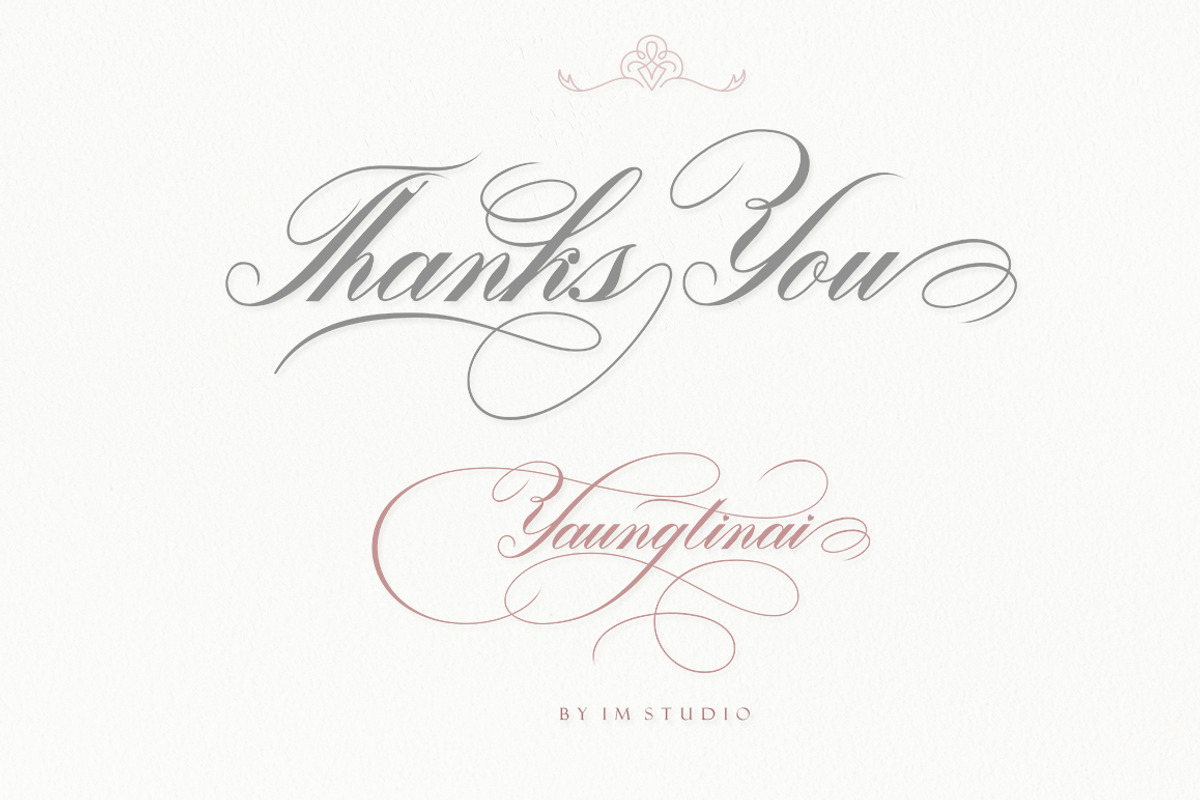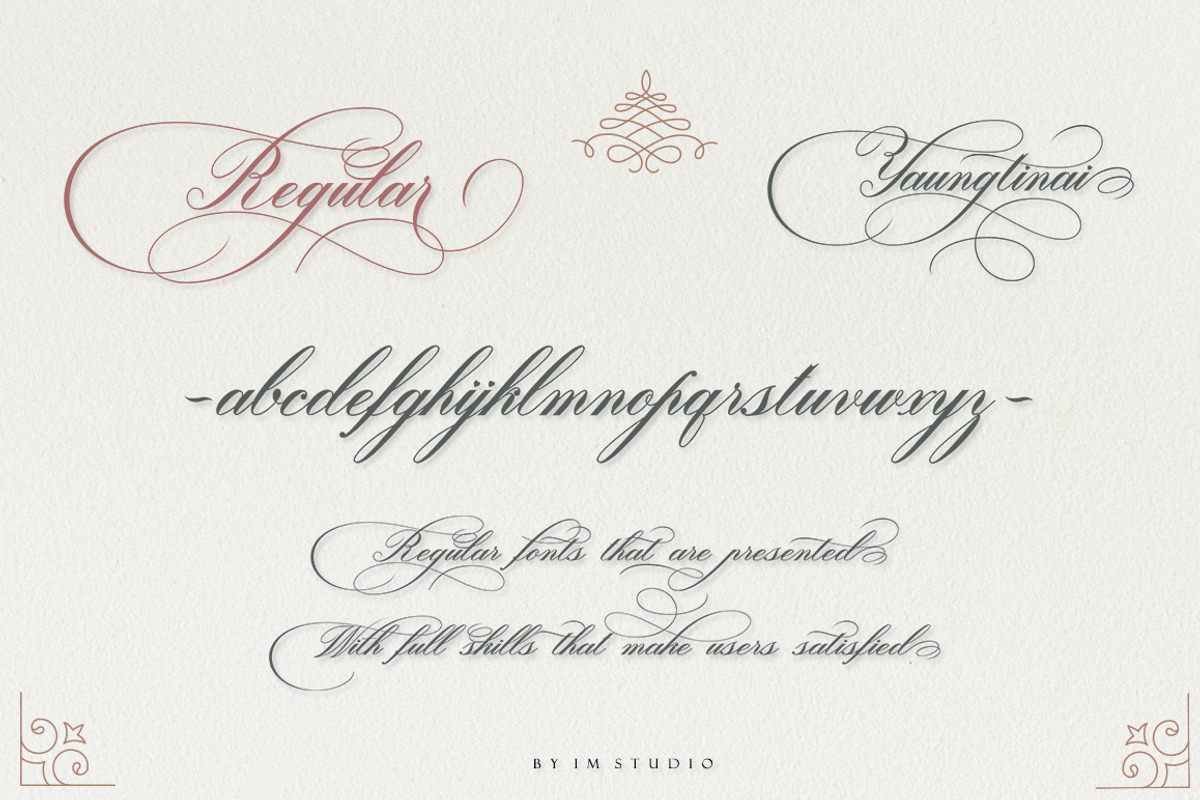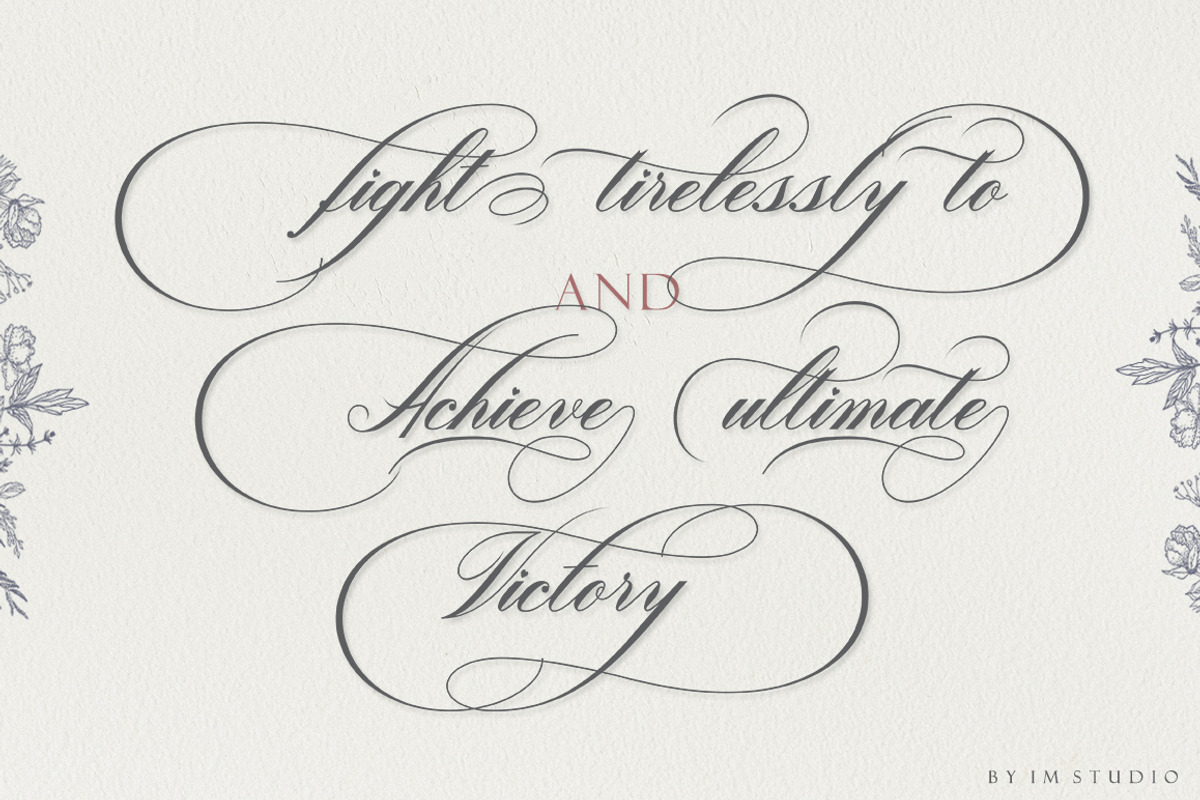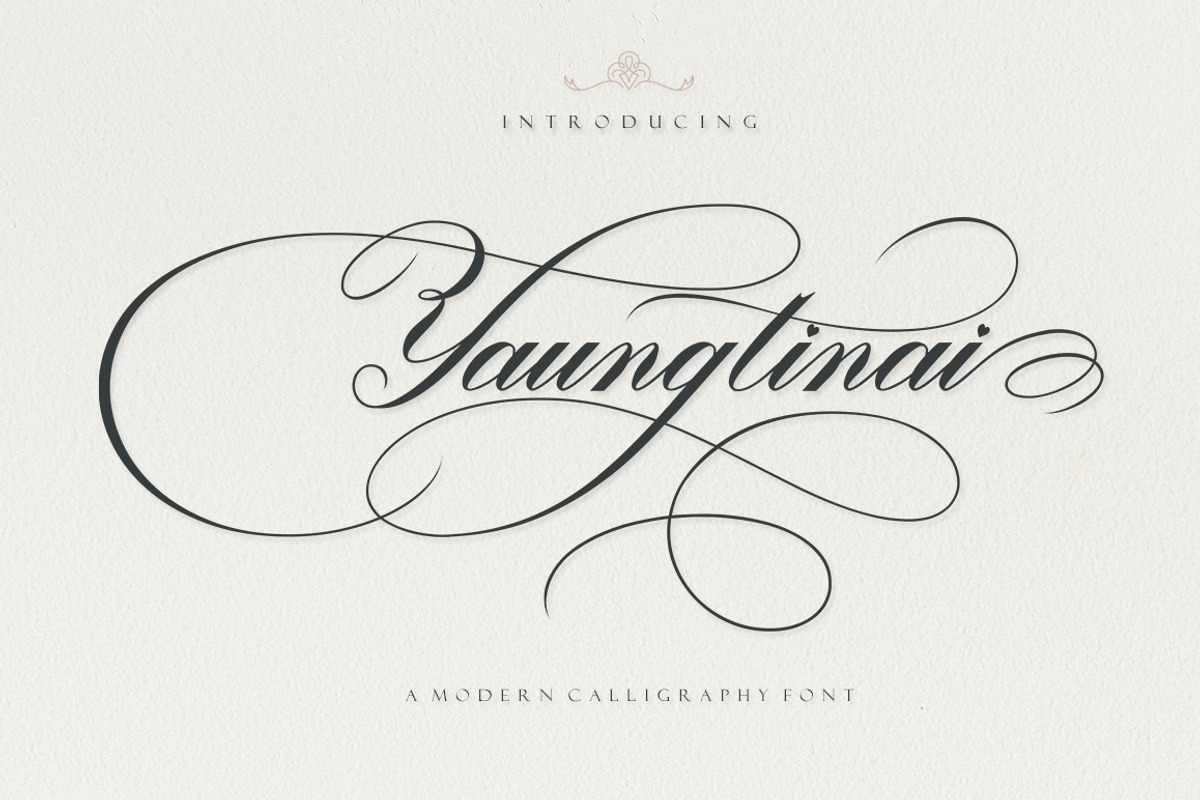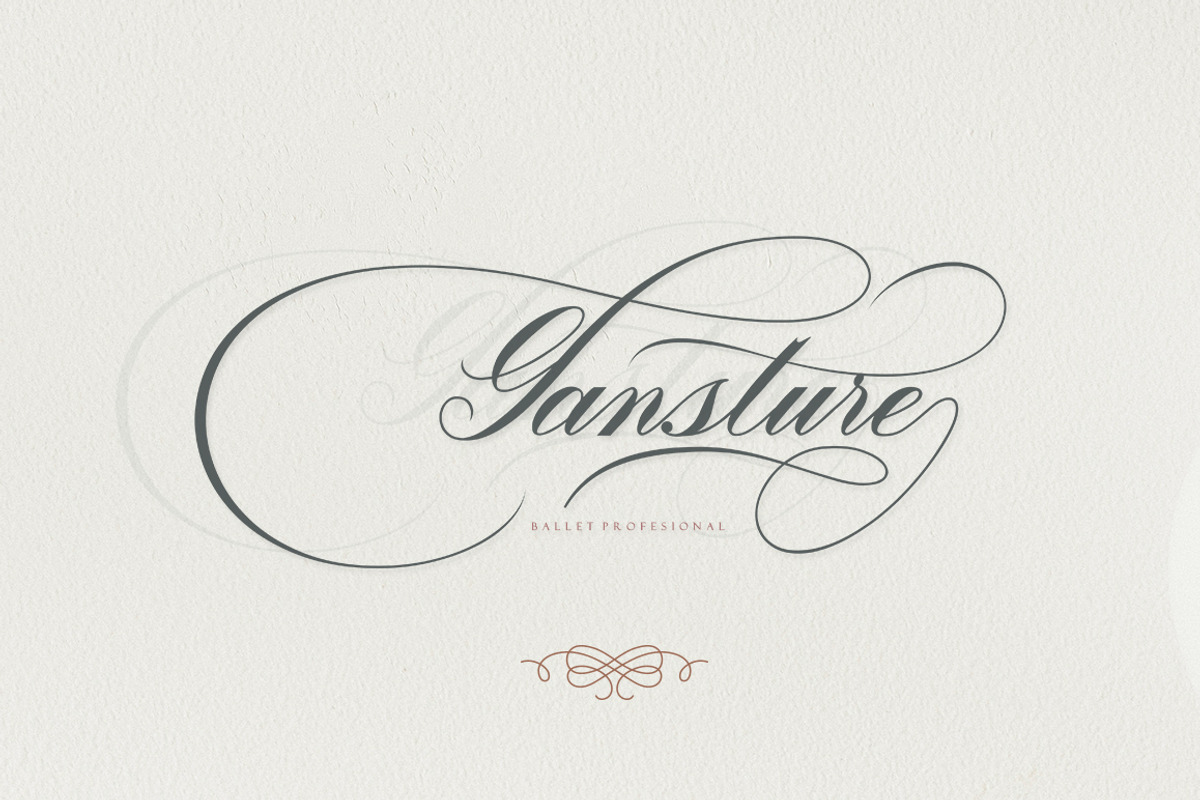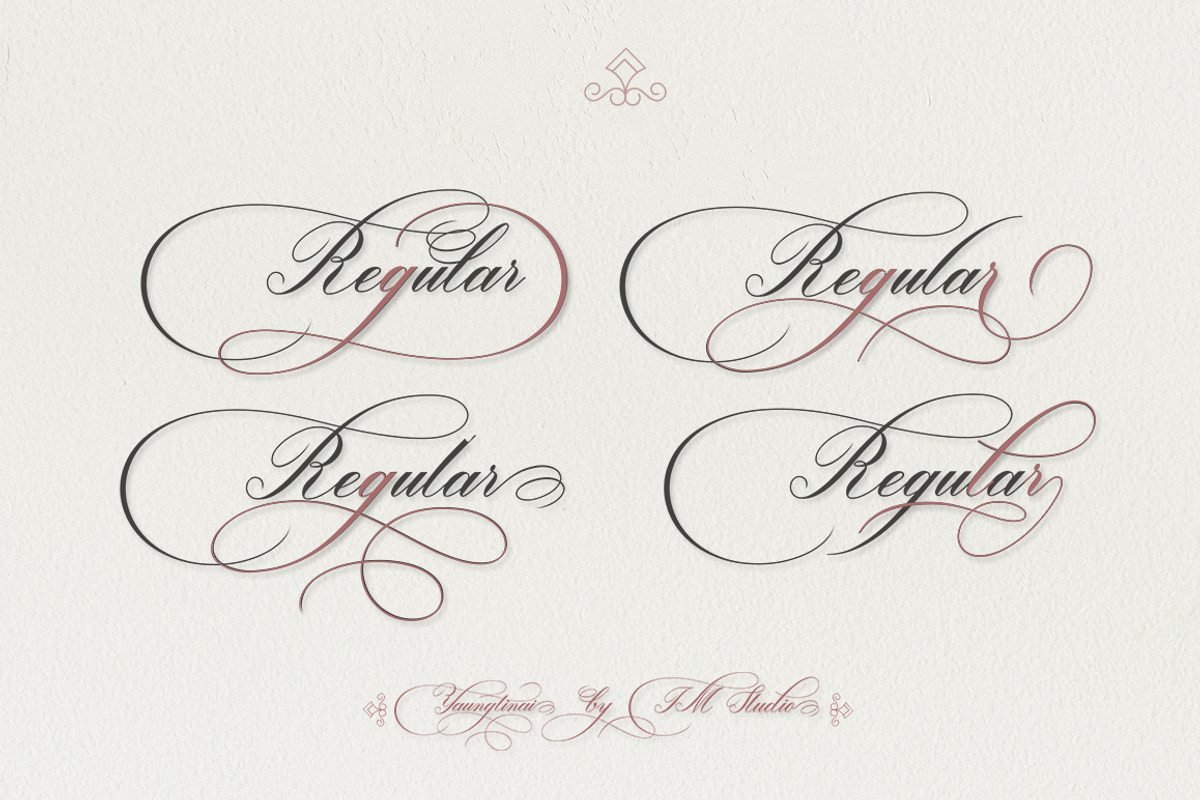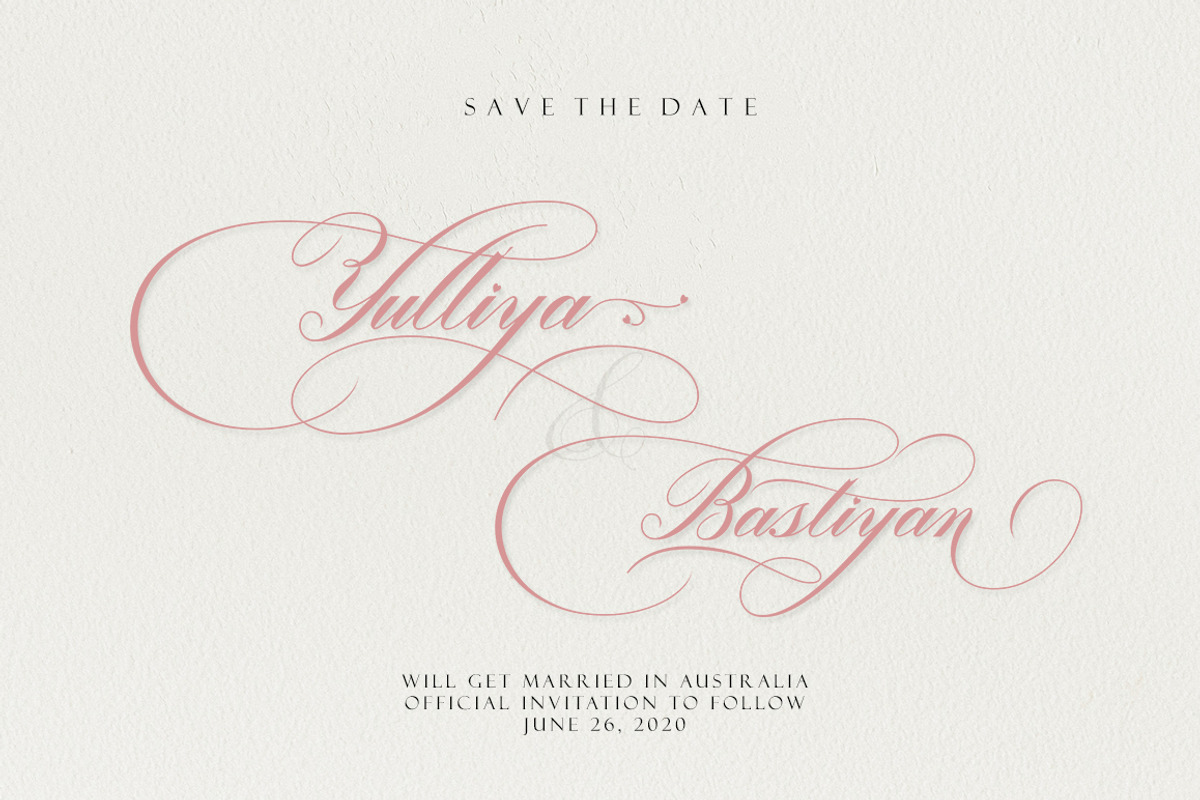
yaungtinai
Yaungtinai - Classic Elegant Copperplate Calligraphy Script Font - Beautiful Classic Luxury Royal Font
The Yaungtinai font comes with glyph variations such as Ligature, Alternate and Swash. You can combine them to create the perfect typography design. It's perfect for your upcoming project. Such as luxury logos and branding, classy editorial design, women's magazines, cosmetic brands, fashion promotions, art gallery branding, museums, historical architecture, boutique branding, stationery design, blog design, modern advertising design, invitation cards, art quotes, home decoration , book title/cover, special events, and more.